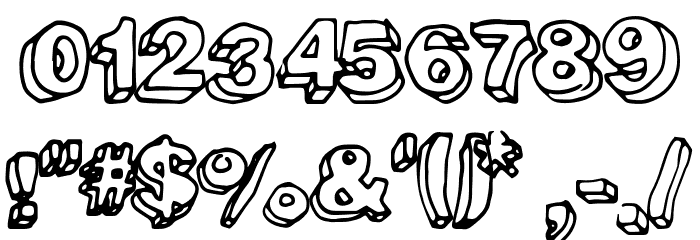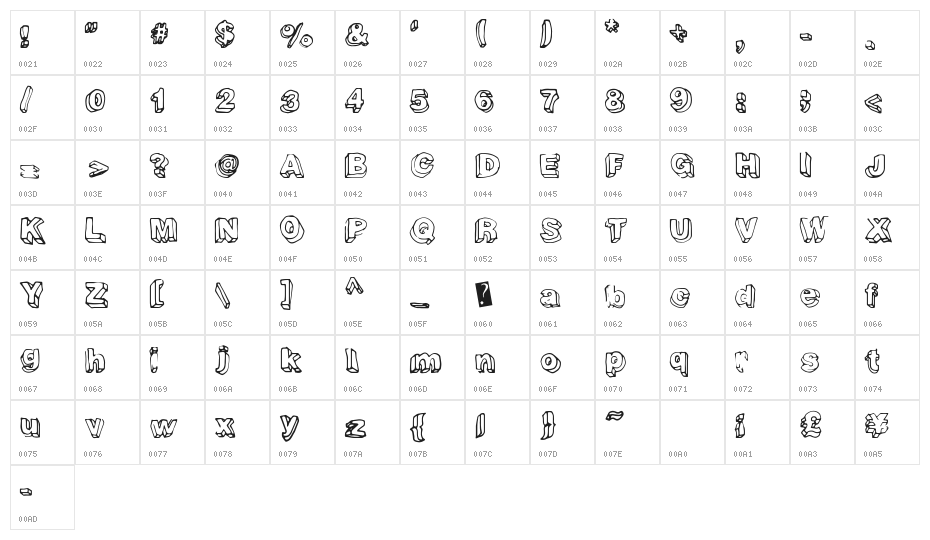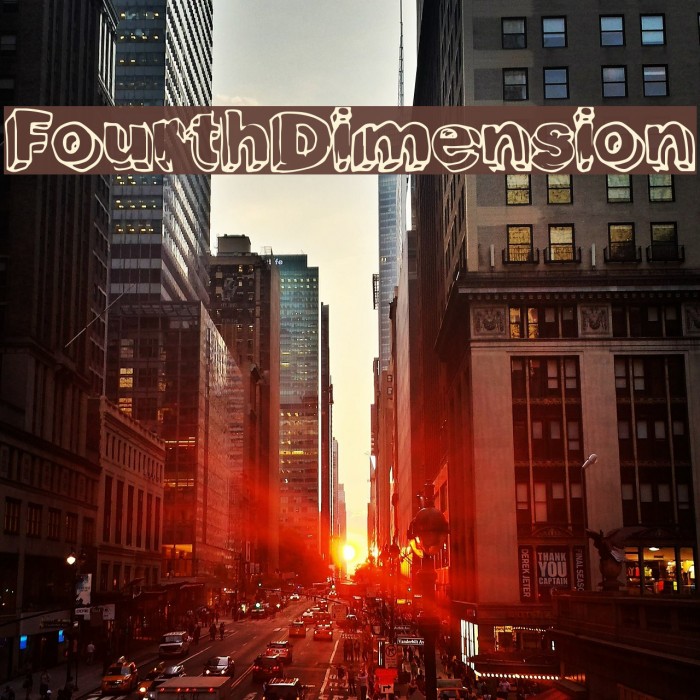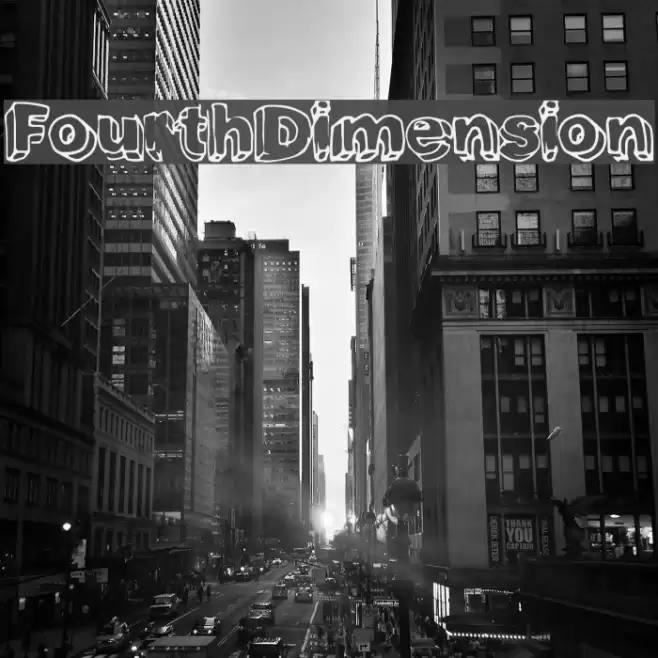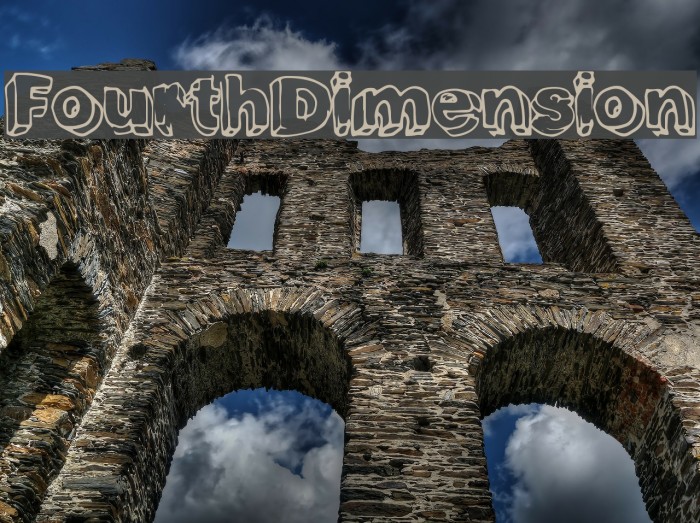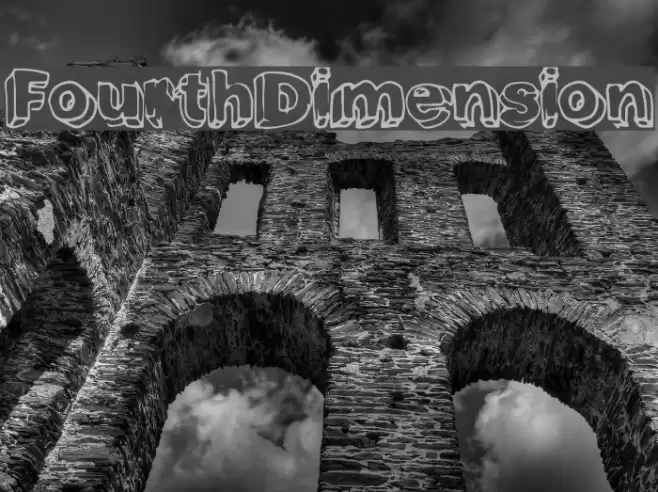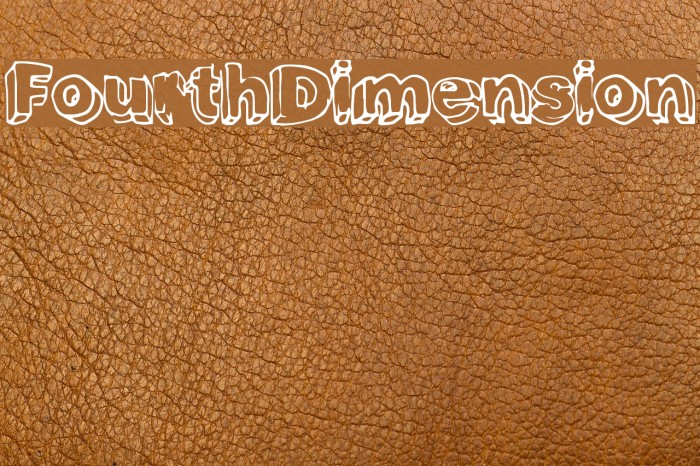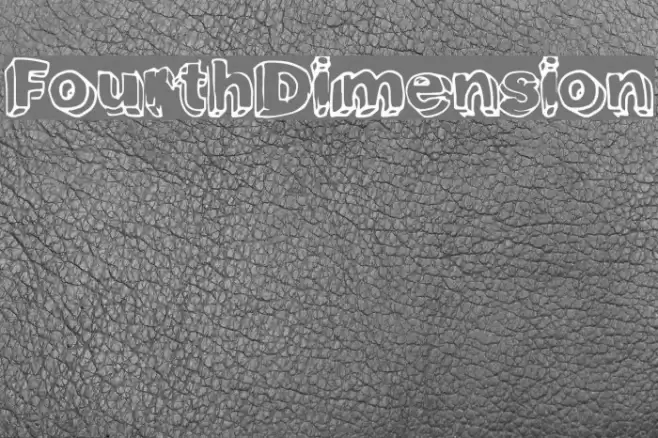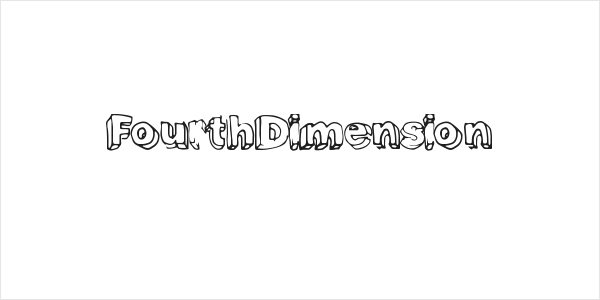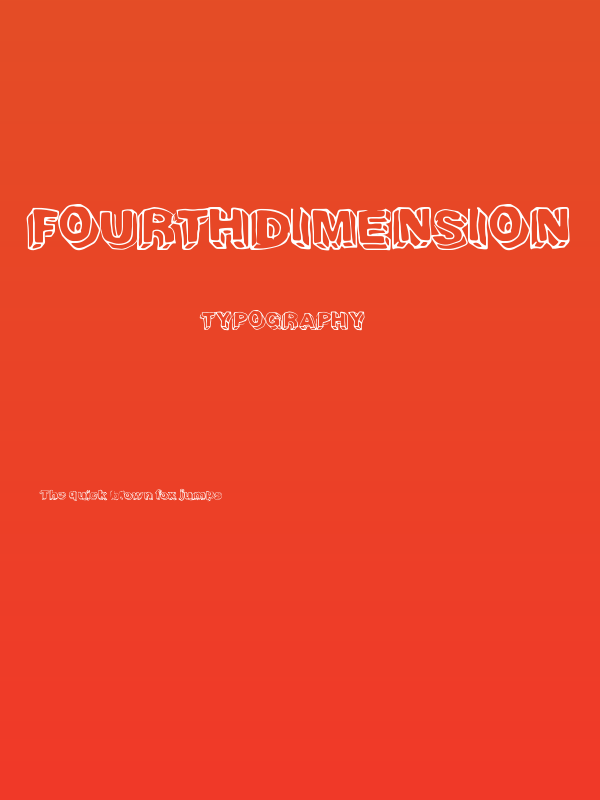
FourthDimension Font
FourthDimension Description
This font features a bold, three-dimensional style with a playful and dynamic appearance. Each character is outlined with a thick black border, giving it a cartoonish and graffiti-like effect. The letters are slightly tilted and have a shadow effect that enhances the 3D illusion. The font is highly decorative, making it stand out with its unique and artistic flair. The characters are well-defined, with consistent spacing that maintains readability despite the complex design. This font is perfect for projects that require a fun and eye-catching aesthetic.
| Proposed Projects | Ideal for comic books, children's posters, graffiti art, and playful branding. |